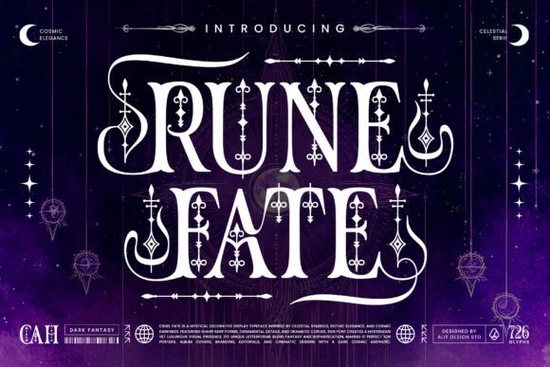
If you're looking for a bold, atmospheric font that brings a sense of mystery and grandeur to your designs, Rune Fate Font is a strong choice especially if you're working on dark-themed branding, fantasy-inspired posters, or editorial layouts. It’s not just another decorative typeface; it’s built with intention, drawing from gothic traditions and celestial motifs to create something that feels both ancient and instantly impactful.
What makes Rune Fate Font stand out?
Unlike many display fonts that rely on gimmicks, Rune Fate focuses on craftsmanship. The design features sharp serifs, sweeping curves, and delicate ornamental details that give each letter a sense of movement and weight. It’s perfect for projects where the typography itself tells part of the story like a mystical logo, a movie poster, or a limited-edition book cover.
The font supports a wide range of characters, including ligatures and stylistic alternates. This means you’re not stuck with one version of each letter. You can swap in different forms to add variety and personality to your text ideal for small businesses wanting to build a unique visual identity or crafters creating custom merchandise with a magical flair.
How to use Rune Fate Font in real projects
Whether you’re designing for print-on-demand, building a brand for a fantasy game, or crafting themed invitations, this font adapts well across formats. Try pairing it with simpler, neutral fonts for balance like a clean sans-serif for body text to keep the focus on the statement-making headline.
- For high-end branding: Use it for logos or taglines that need a regal, timeless feel.
- For digital art: Add it to concept art, social media posts, or thumbnails to draw attention.
- For print projects: Perfect for wedding invites, book covers, or event flyers with a dramatic theme.
You’ll also appreciate how well it works at larger sizes its intricate details shine when used as a display font, making it ideal for headlines, banners, and posters.
Why designers choose Rune Fate over similar options
While there are many fantasy-style fonts out there, Rune Fate stands out because it balances drama with readability. It doesn’t sacrifice legibility for style, even at smaller sizes (though it truly excels when large). Its thoughtful spacing and consistent stroke contrast make it professional-grade, not just decorative.
If you’ve worked with other fonts like Playful Slab or Skyline, you’ll notice Rune Fate offers a more refined, narrative-driven aesthetic. It’s less about playful energy and more about quiet power like an old spellbook found in a forgotten library.
For those who love earthy, natural themes, consider how Harvest Mango adds warmth and organic texture. But if your vision leans toward the arcane, the moonlit, or the royal, Rune Fate fits better especially when paired with deep colors like navy, black, or bronze.
A quick tip: Use alternates to avoid repetition
Don’t use the same version of “A” or “S” throughout your entire layout. Explore the alternate glyphs many fonts include these hidden gems. A single change can make your text feel more dynamic and intentional.
Once you’ve tested it in a few mockups, ask yourself: does it match the mood I want? If yes, you’re ready to use it in your next project.